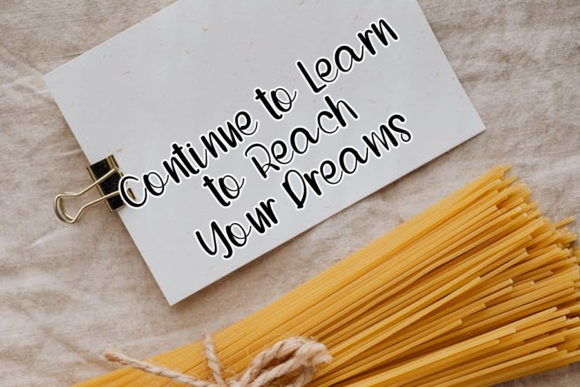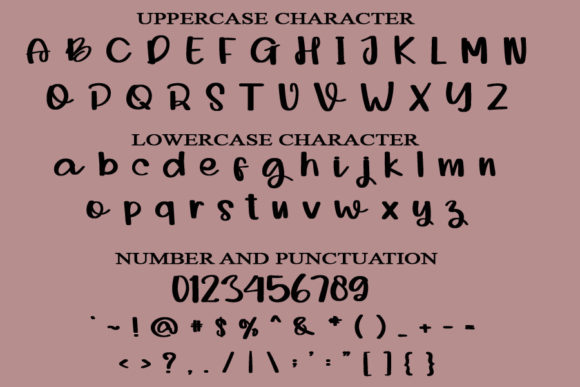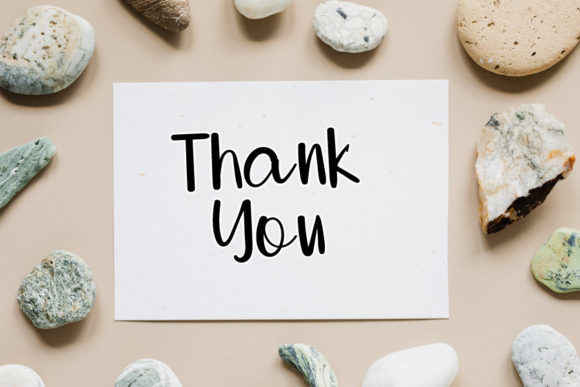
Success Font
About Success Font
Success is an incredibly cool and unique handwritten font. It has a modern yet whimsical style and it will undoubtedly immerse your designs into a magical world.